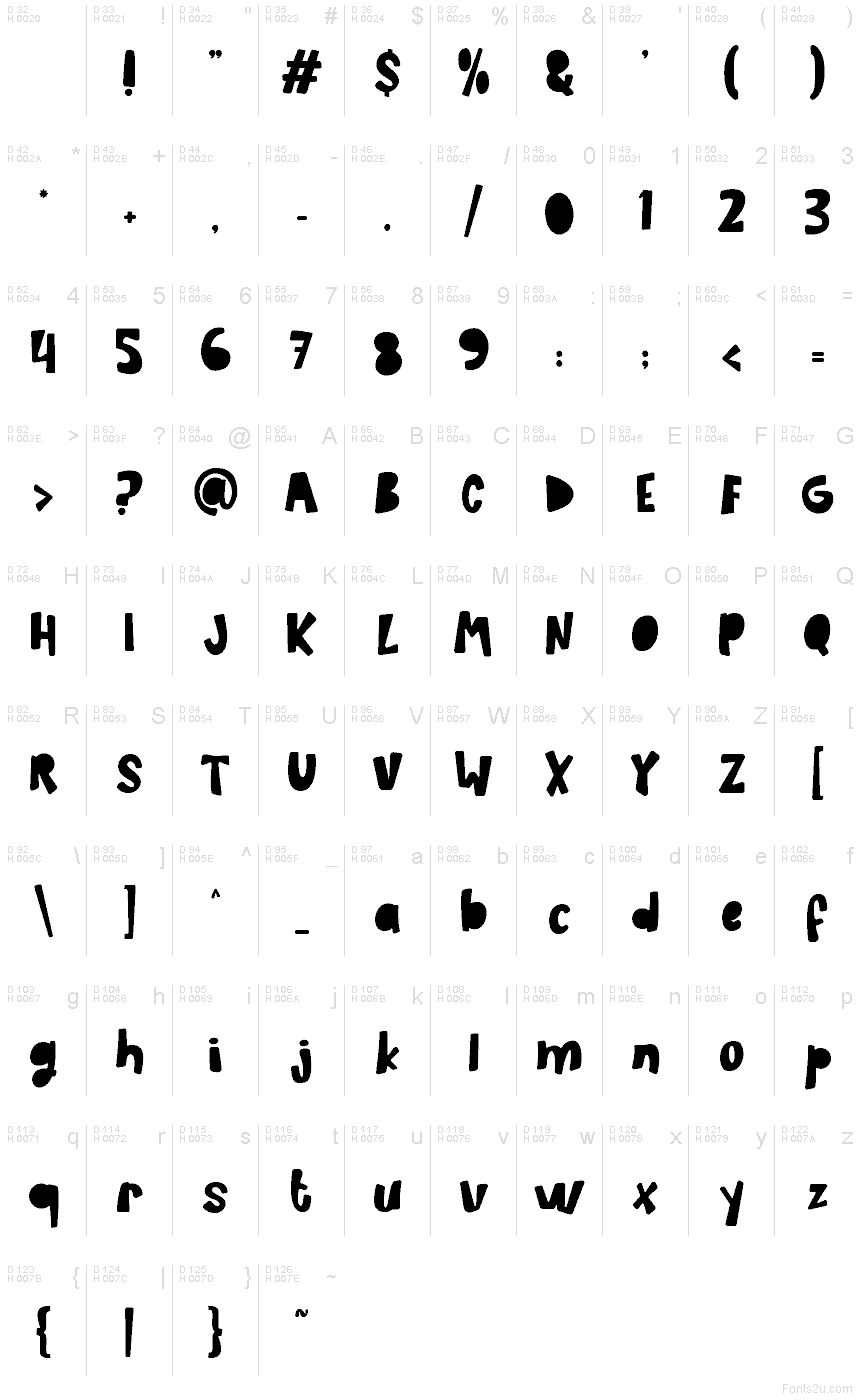
Savage Garden Block
Savage Garden Block font by PutraCetol Studio is a comic display typeface that fits perfectly in catchy poster titles. The bold font has an entertaining look will never go unnoticed and will always catch the attention of its readers. It is ideal for short text instead of long body paragraphs.